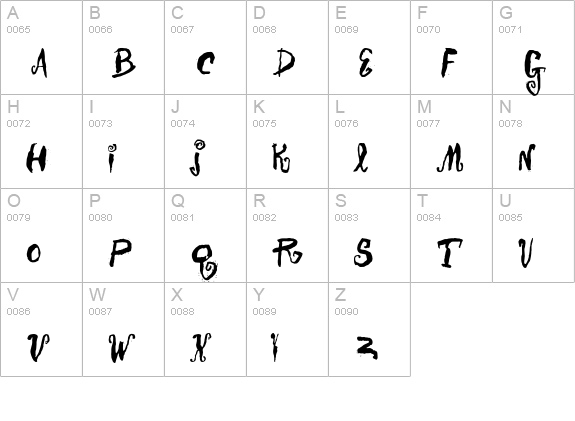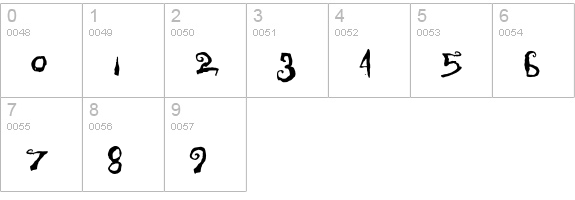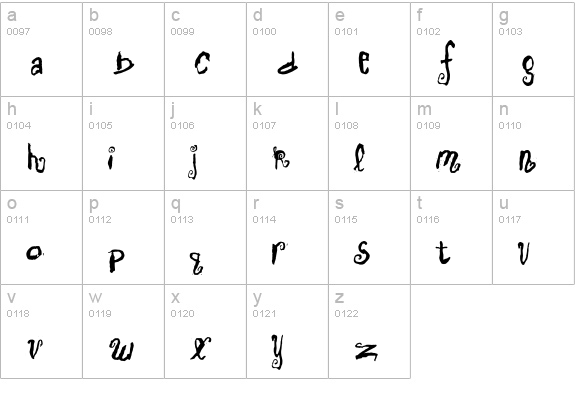
VoitureArgot Font Details
Introducing VoitureArgot, a captivating and edgy font that effortlessly combines sophistication with a touch of rebelliousness. This font is perfect for any creative project looking to make a bold statement and leave a lasting impression. VoitureArgot features an alluring mix of sharp angles and sleek curves, creating a visually striking display that commands attention. Each letter is meticulously crafted to exude a sense of uniqueness and individuality, allowing your words to truly stand out from the crowd. But what truly sets VoitureArgot apart is its versatility. Whether you're designing a logo, crafting an eye-catching headline, or simply adding a touch of flair to your social media posts, this font effortlessly adapts to any context. Its ability to seamlessly transition from elegant and refined to bold and daring makes it a must-have in any designer's toolkit. And the best part? VoitureArgot is available for free! Yes, you read that right. You can easily download this remarkable font at FontsMarket.com, where it is freely accessible to all. Say goodbye to expensive design resources and hello to creative freedom with VoitureArgot. So, what are you waiting for? Embrace the rebellious spirit of VoitureArgot and let your imagination run wild. Download this captivating font today and unlock a world of endless design possibilities!